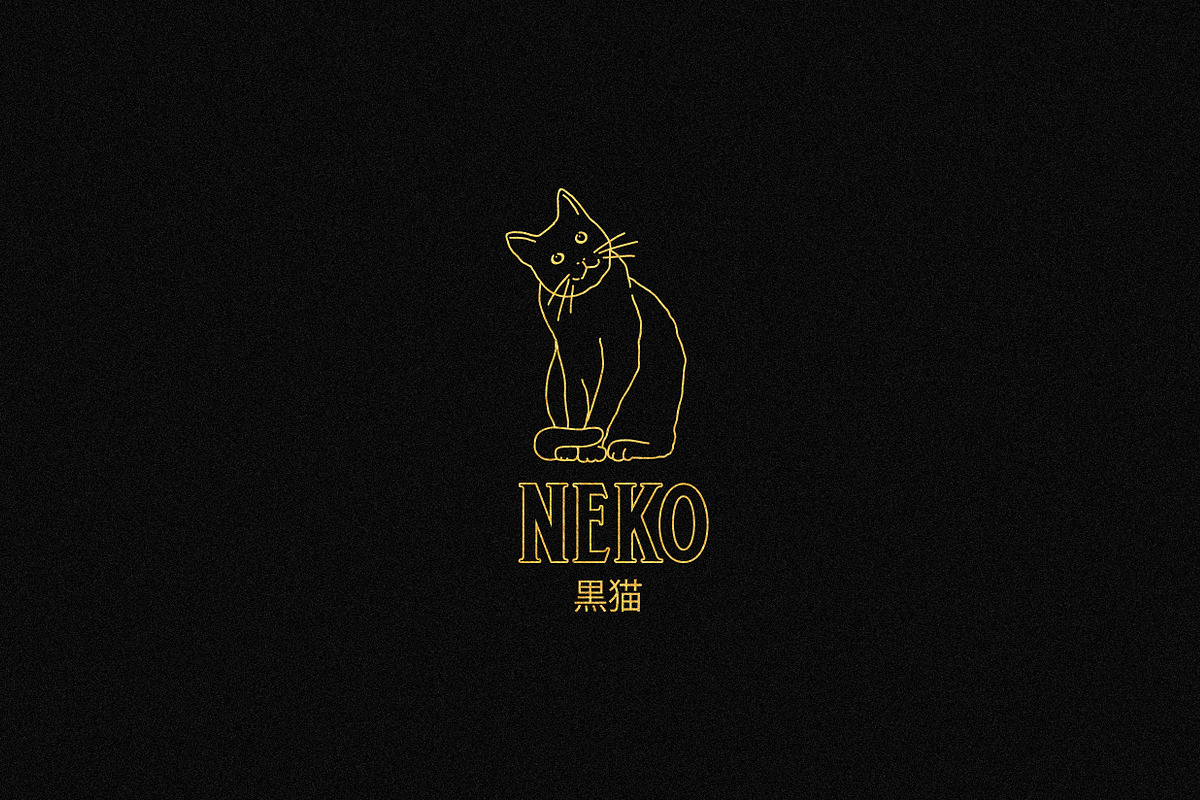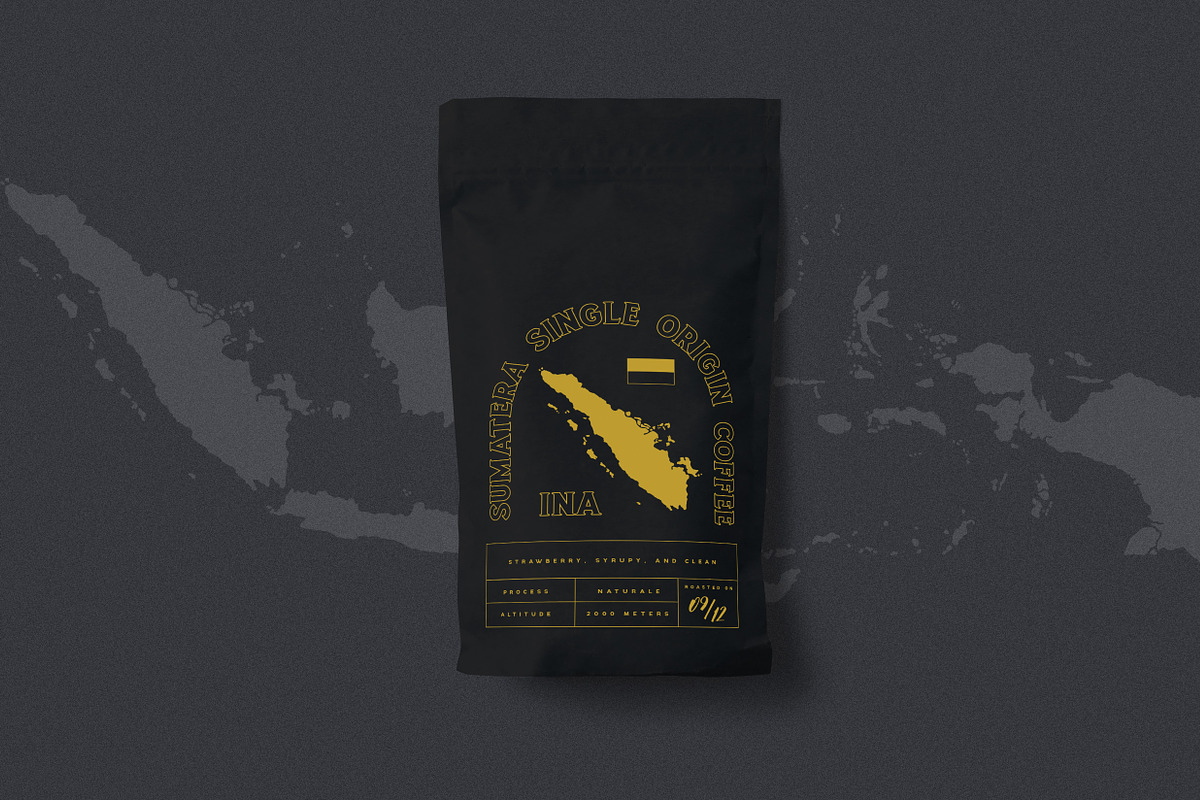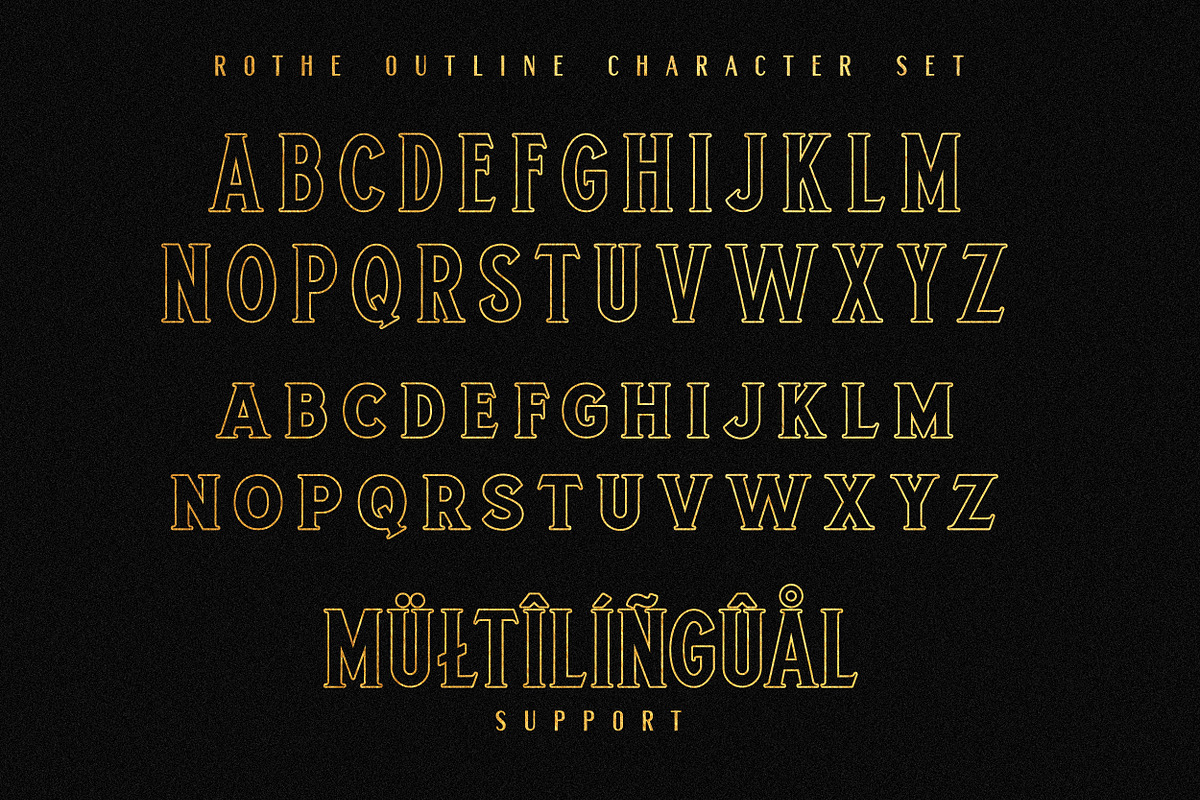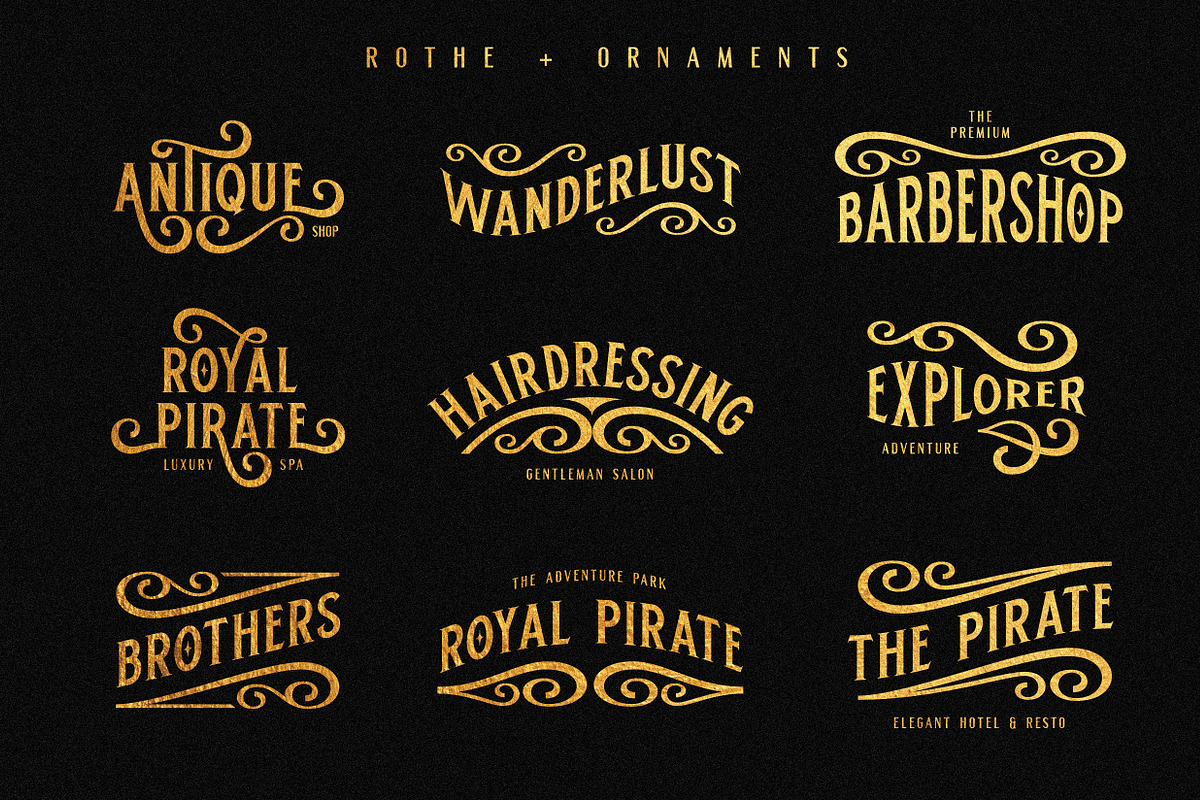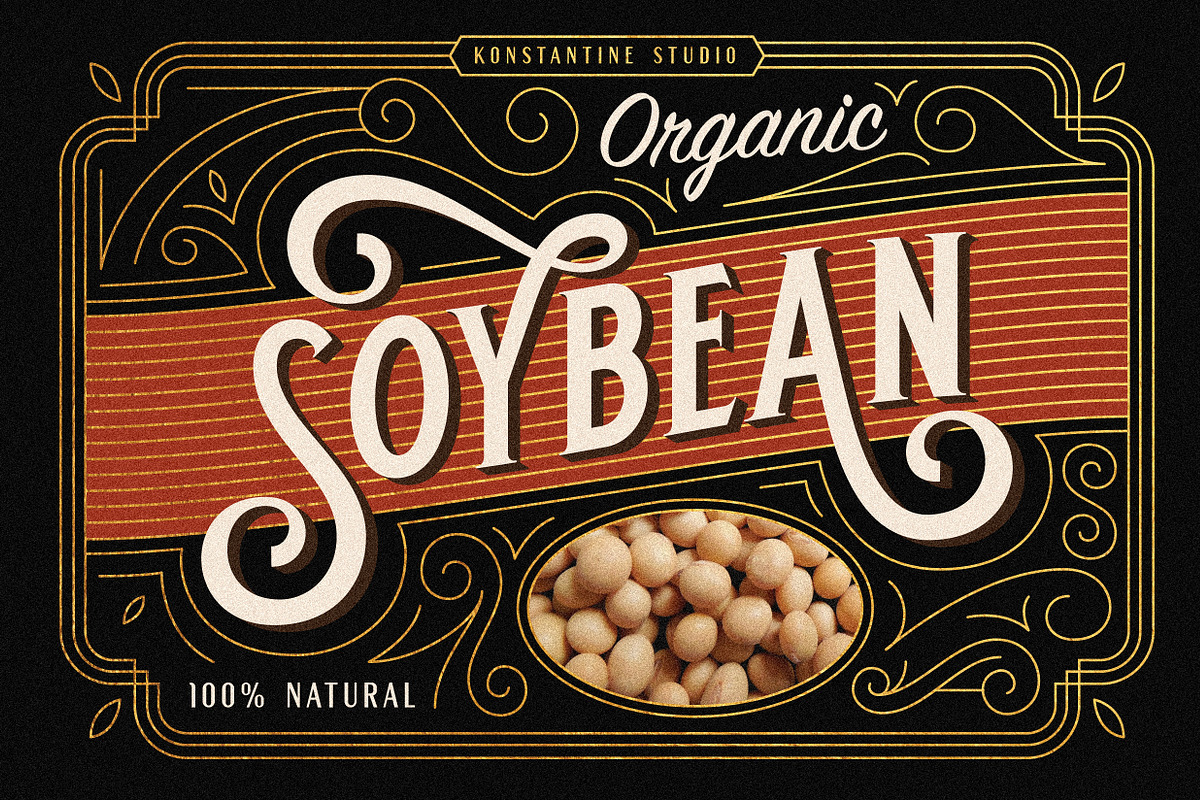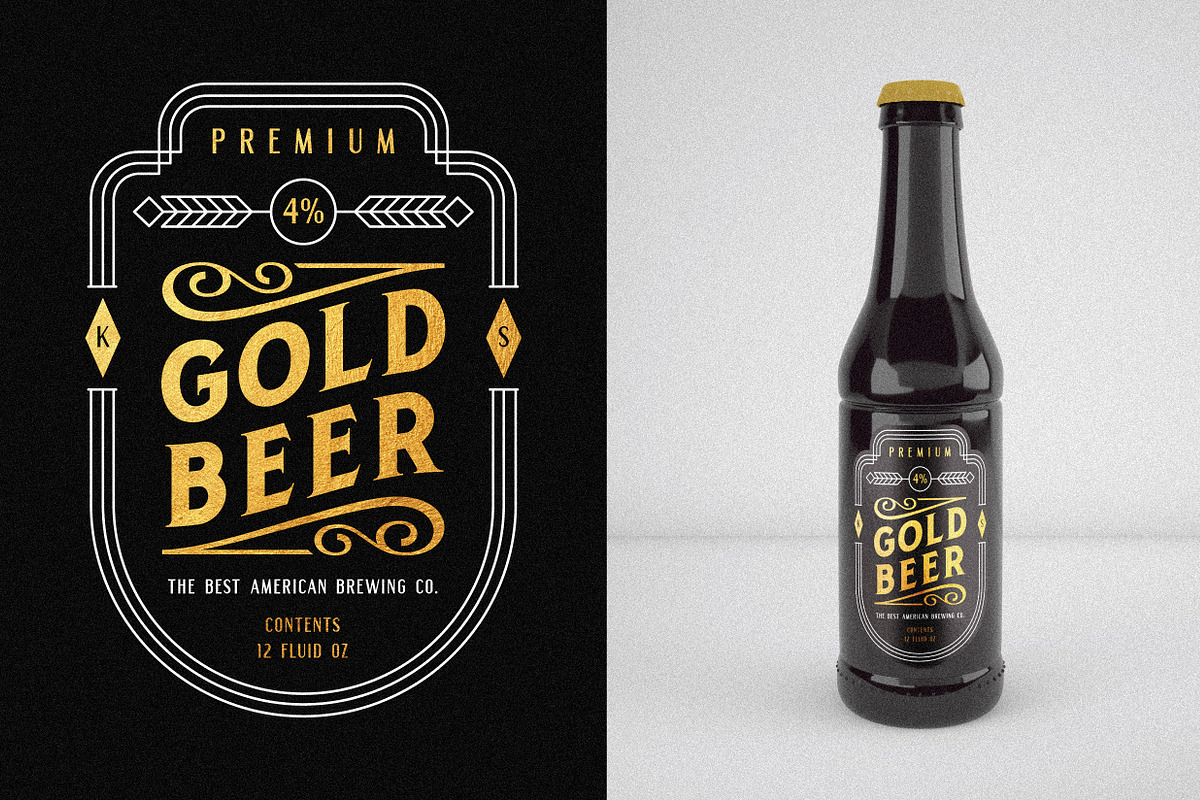
ROTHE - Vintage Luxury Font
ROTHE, A luxury vintage lettering style fonts. Inspired by the branding from the vintage classic era with the full decorative feels and complex design but still get the luxury feels right away.
Included Uppercase, Lowercase, Numbers & Punctuations, Multilanguage Support, Alternates for the Uppercase with swashes and outlined version, and decorative elements in font file as well.
Rothe Elements Standard
Rothe Elements Outlined
- Included Uppercase, Lowercase, Numbers & Punctuations, Multilanguage Support, Alternates for the Uppercase with swashes and outlined version